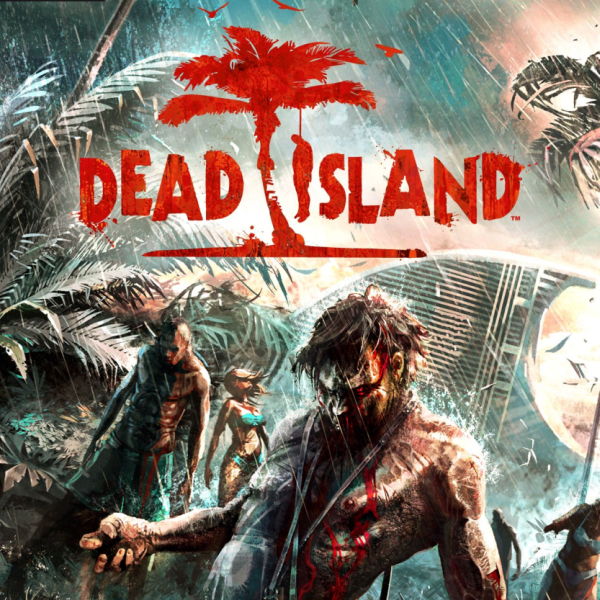
Dead Island Font
The box cover for the video game Dead Island features the geometric sans font Decade, which was created by Anthem Type in 1998. You can download it for free in the Fonts Used Section.